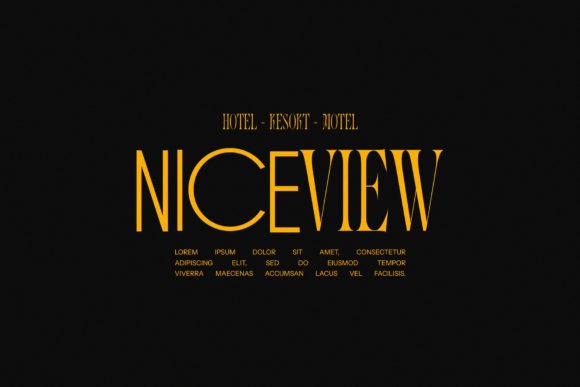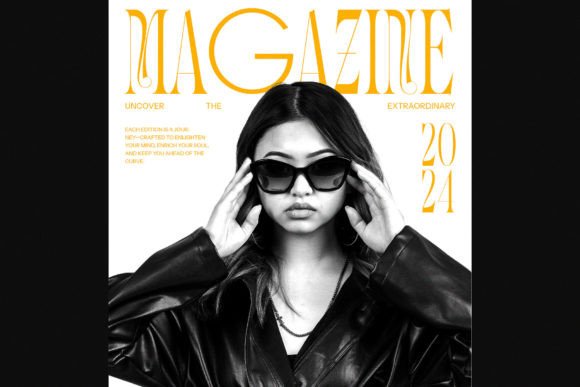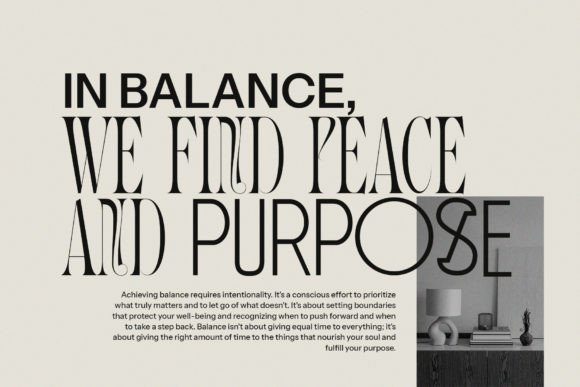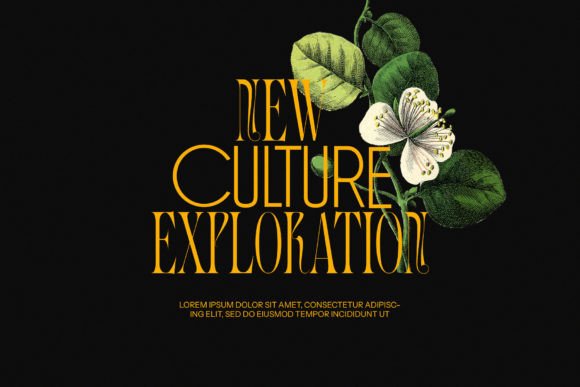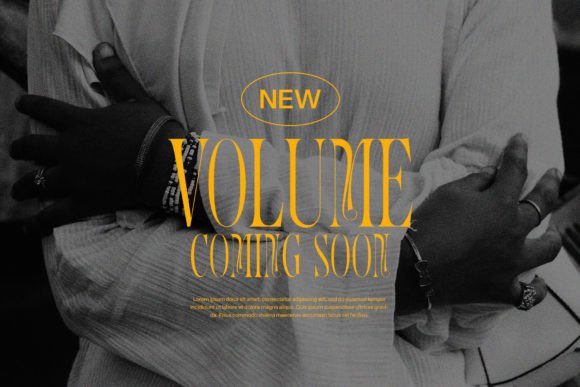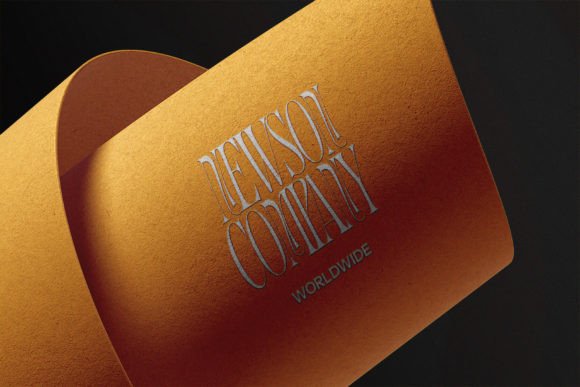
Introduction to Shinimos Font
Shinimos is a modern serif typeface that offers a fashionable touch.
It doesnโt only look sophisticated but also charming What makes it interesting is the delicate curves, which bring an elegant style to it.
Key Features of Shinimos Font
Why Choose Shinimos Font?